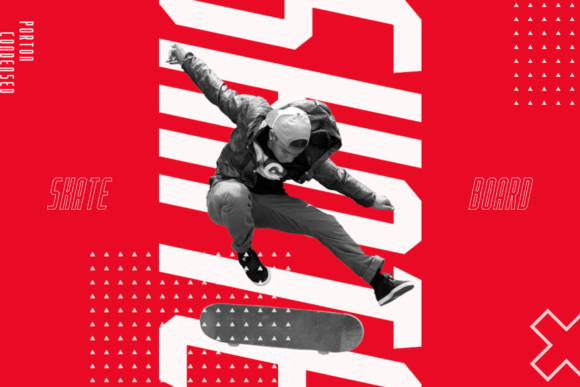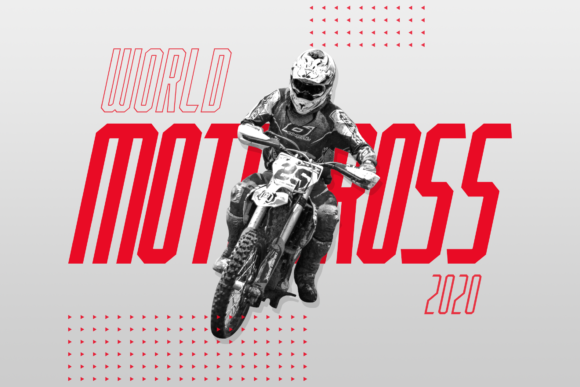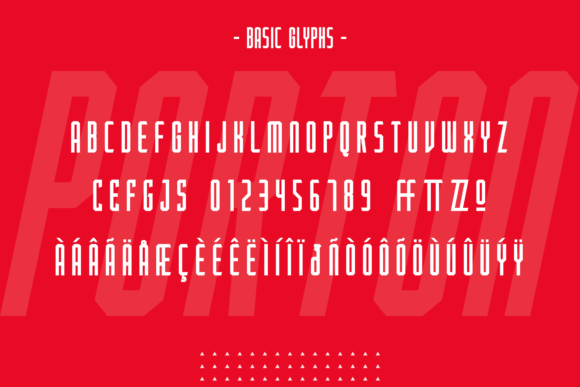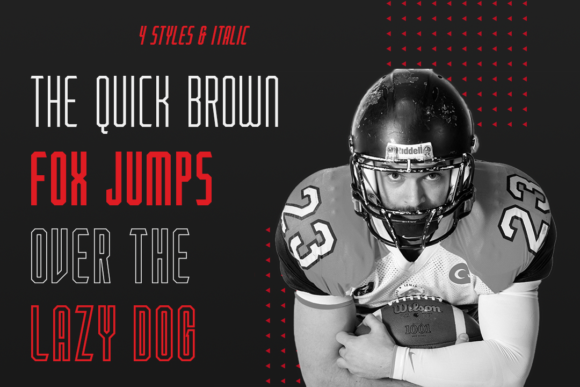
Introduction to Porton Font
You’re sitting in front of your computer, staring at a blank canvas, waiting for that perfect font to bring your creative project to life. The cursor blinks, and you start browsing through your design resources. Suddenly, you stumble upon the Porton Font, and everything changes. Its clean, straight lines and strong display style grab your attention, and you can’t help but feel a rush of excitement.
With its unique look and high-quality design, the Porton Font is a valuable resource for designers. Whether you’re working on a logo, a poster, or a digital interface, this font is sure to make your design stand out. And the best part? It’s available for free download, making it an accessible addition to any design project.
Key Features of Porton Font
- High-quality, free font designed for creative projects, ideal for use in graphic design, web design, and digital art.
- Transparent background option, allowing for seamless integration with images and backgrounds.
- Designed to be highly legible and versatile, making it suitable for a wide range of design applications.
- Resolution-independent, ensuring crisp and clear display at various screen sizes and resolutions.
- Unique, modern design aesthetic, perfect for adding a touch of sophistication to any creative project.
Honest Review: Porton Font
As a designer, I’m always on the lookout for high-quality fonts to elevate my creative projects. I recently stumbled upon the Porton Font, and I’m excited to share my honest review.
- High-quality design: The Porton Font boasts a clean, modern design that’s perfect for a variety of creative projects.
- Transparent background: The font’s transparent background makes it easy to use on both light and dark backgrounds.
- Limited character set: The Porton Font only includes a limited character set, which may not be suitable for complex projects.
Overall, the Porton Font is a great design resource for designers working on personal projects. Its high-quality design and transparent background make it a versatile choice for a variety of creative projects. However, its limited character set and lack of commercial licensing may be a drawback for some designers.
The Porton Font is commonly used for creating logos, headings, titles, and other design elements. Its high-quality design and transparent background feature make it perfect for creative projects that require a professional look.
To get the most out of the Porton Font, use it in combination with other design elements to create a cohesive and professional design. Experiment with different font sizes, colors, and styles to find the perfect look for your creative project.